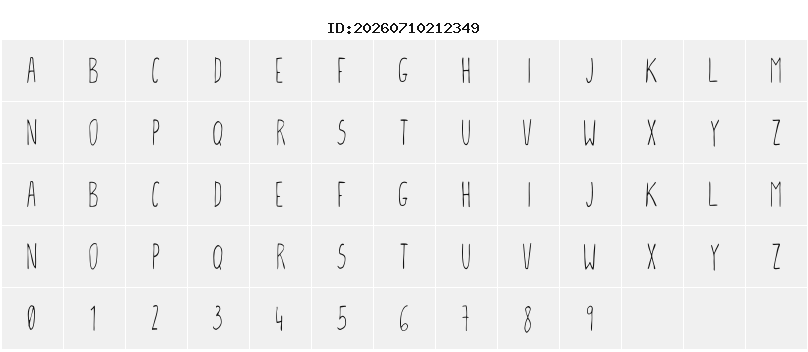
• Font Name: GCMFontone
• Full Font Name: GCMFontone
• Character Count: 256
About GCMFontone.ttf
GCMFontone.ttf is a modern, elegant sans-serif font designed for ultimate readability and visual harmony. Perfect for branding, headlines, web design, and print materials.